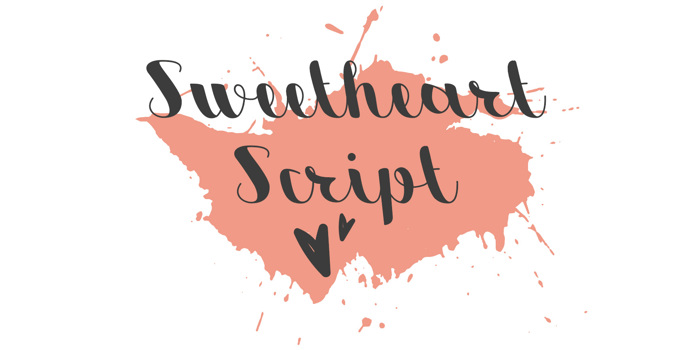
Sweetheart Script Font
Sweetheart Script is a Brush Handwriting Display Typeface created for your sweetest words!
Its calligraphic look made it ideal for handmade feel, the shapes are soft and the lines leads the eyes through the words.
Sweetheart Script is suitable for love letters, greetings cards, advertisings, poster and more.
Sweetheart Script Family:
Sweetheart Script Regular